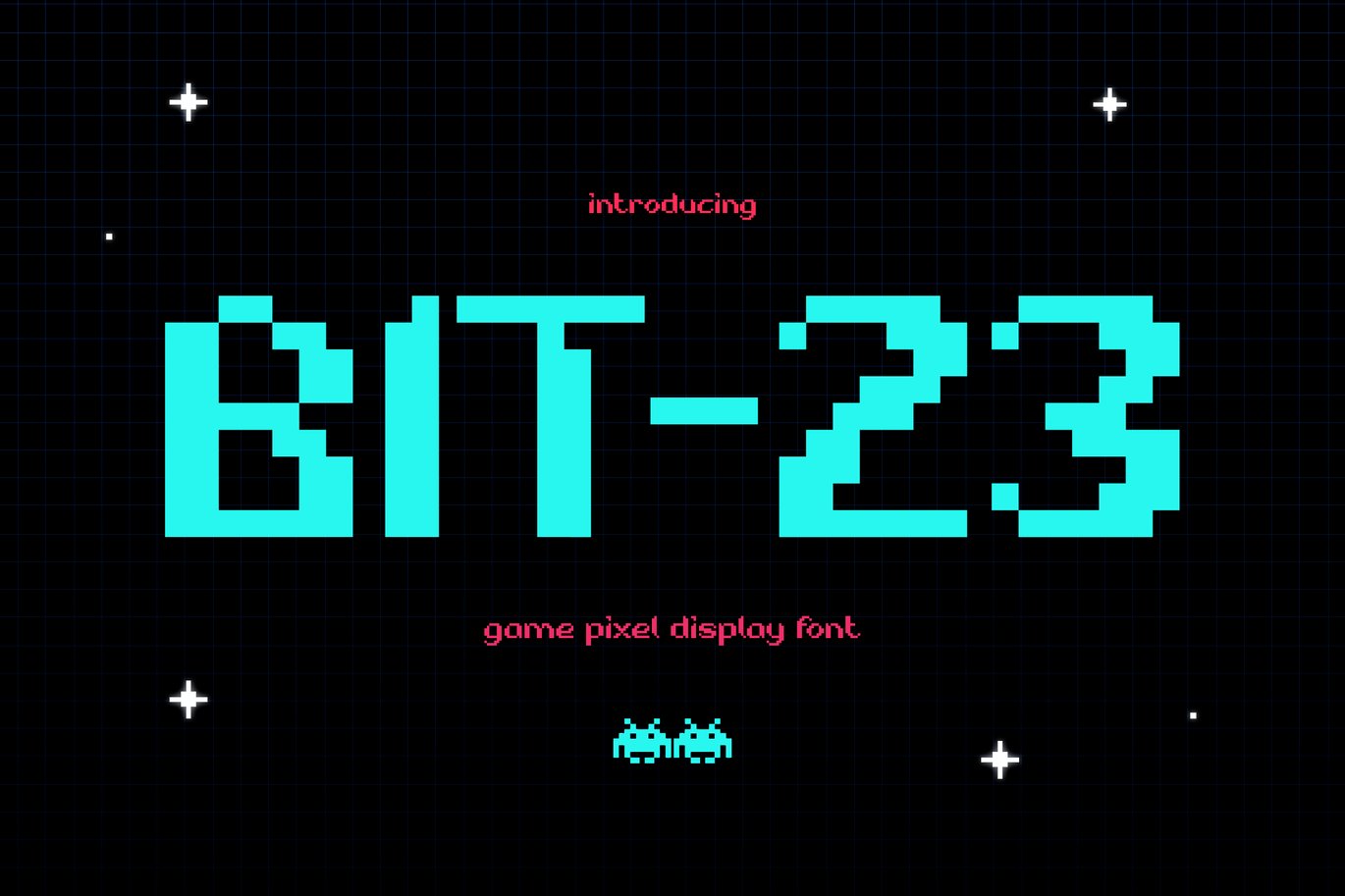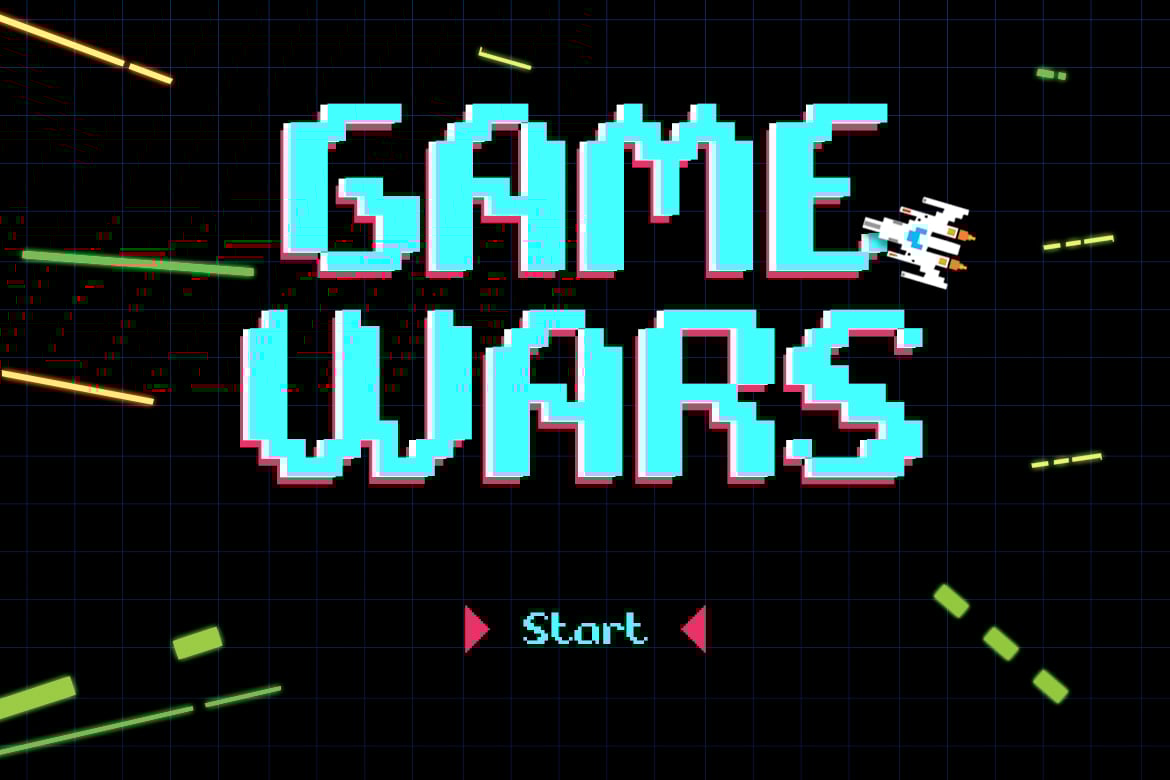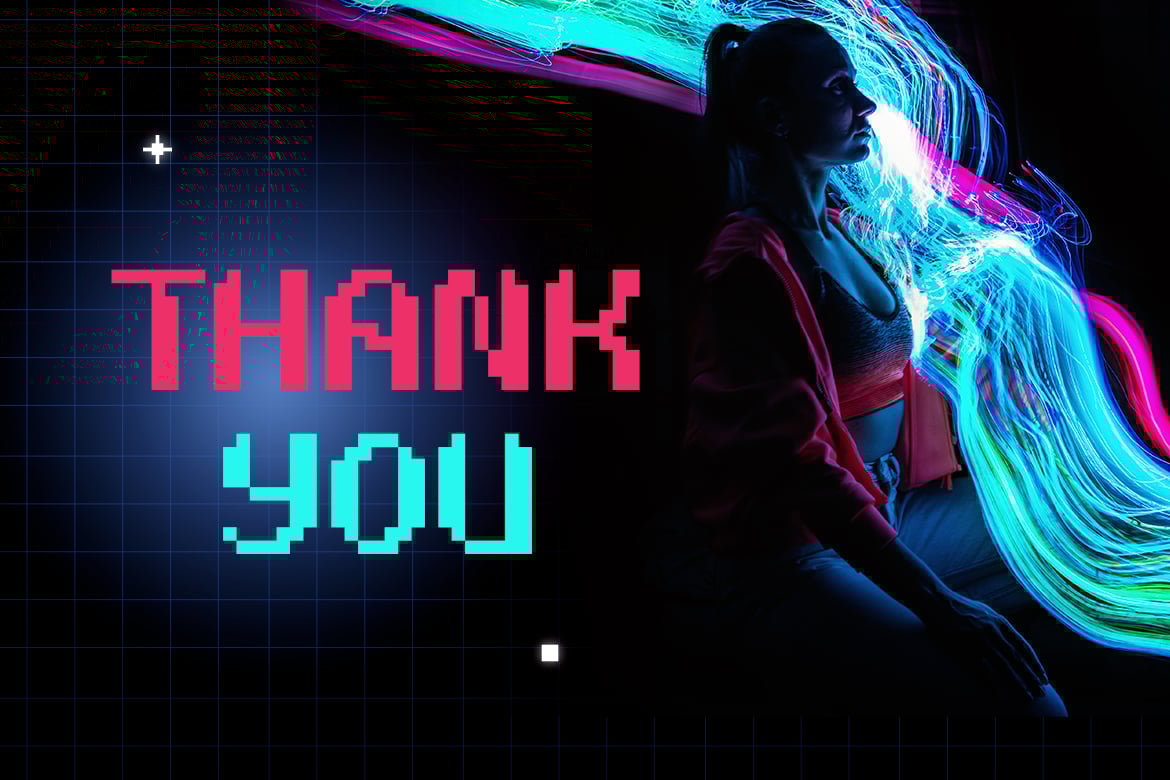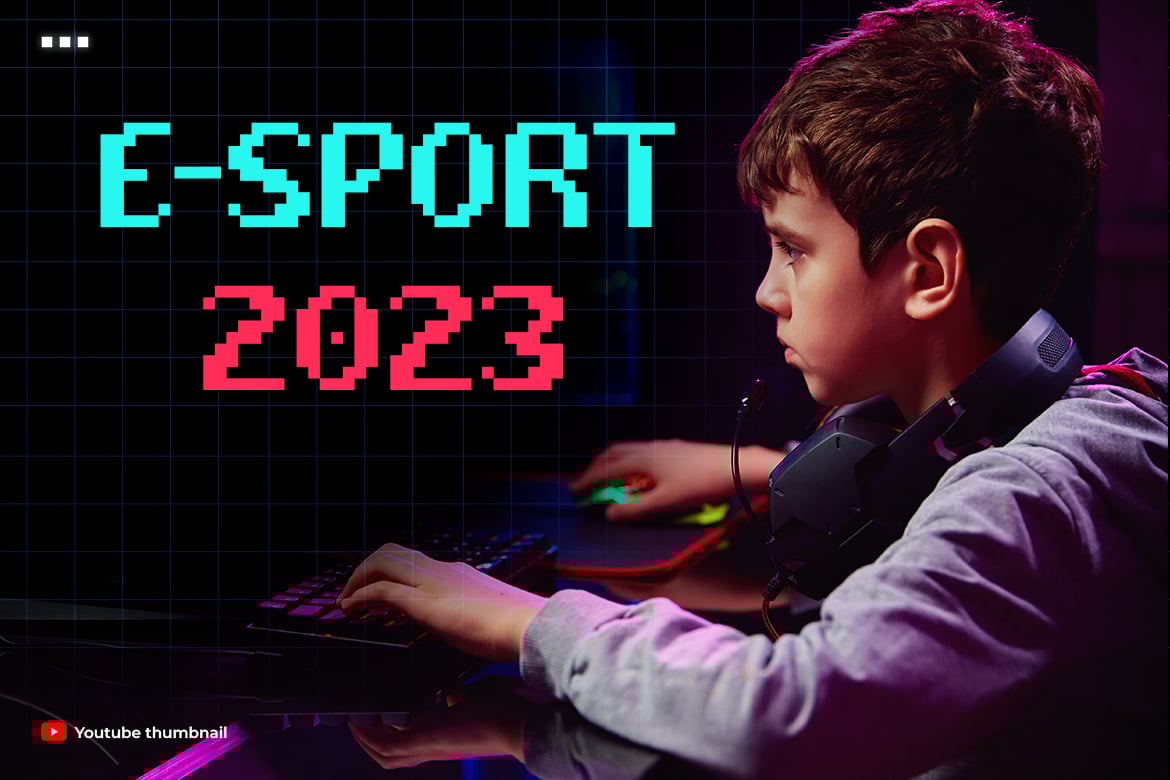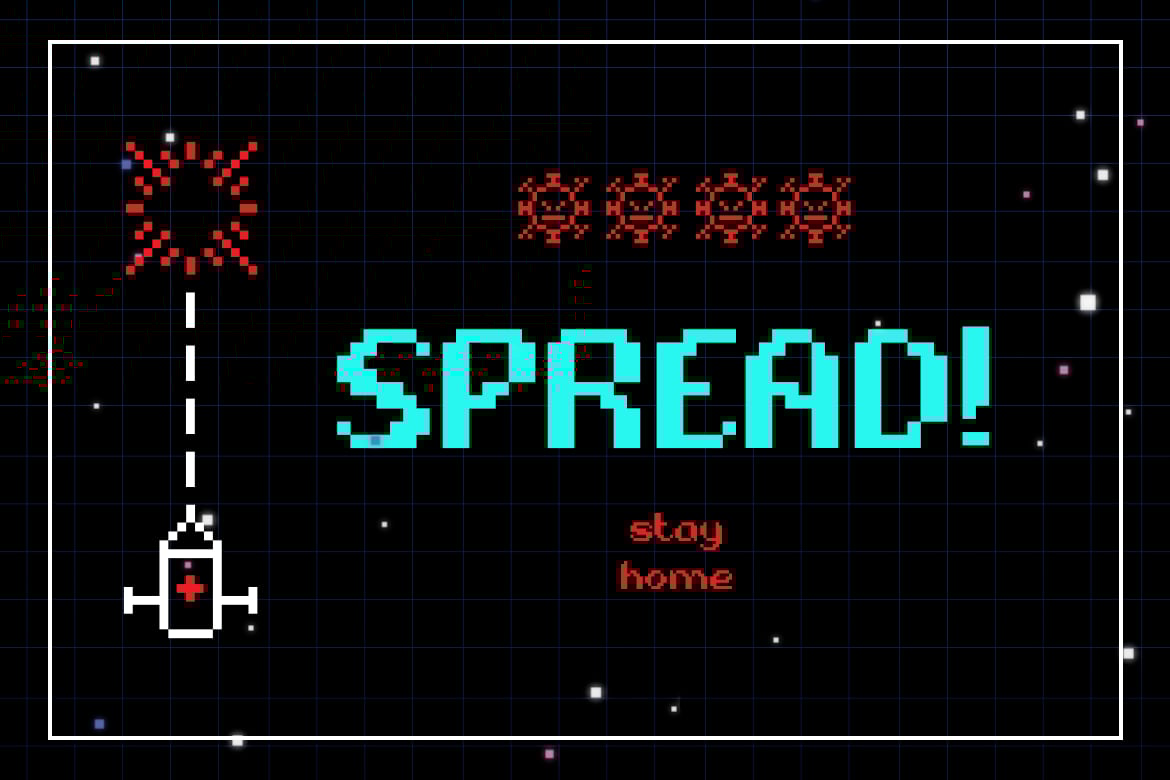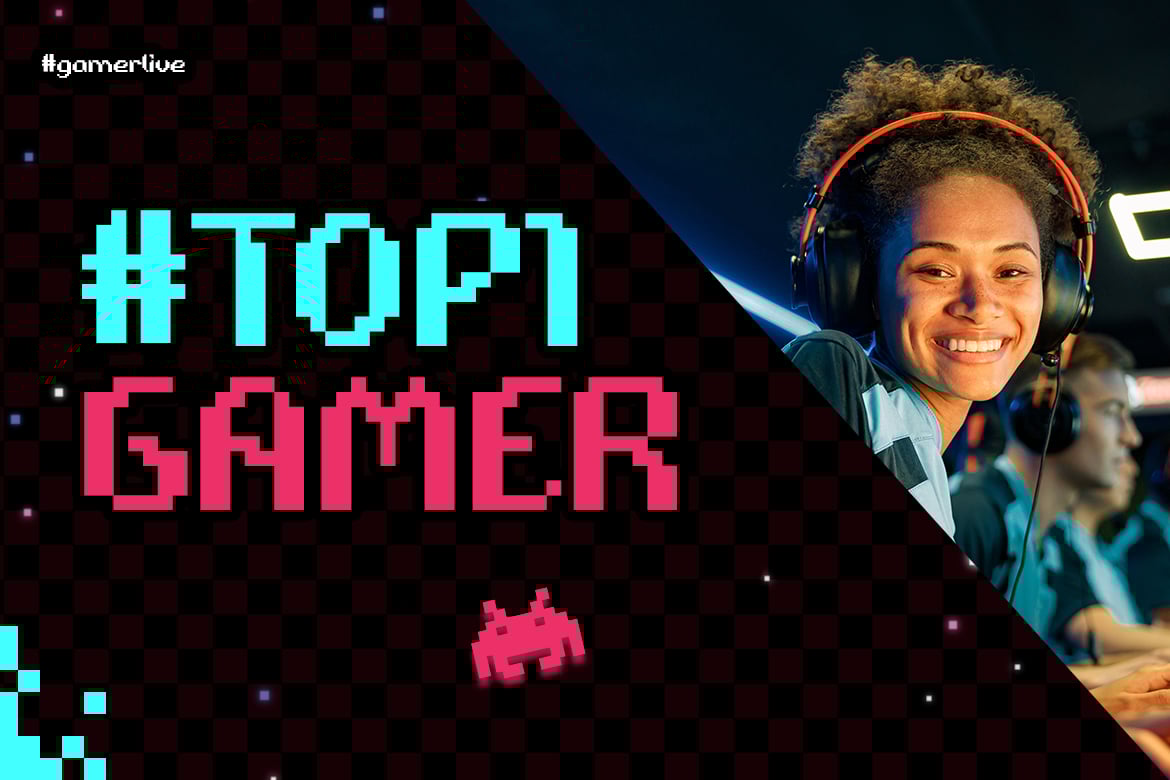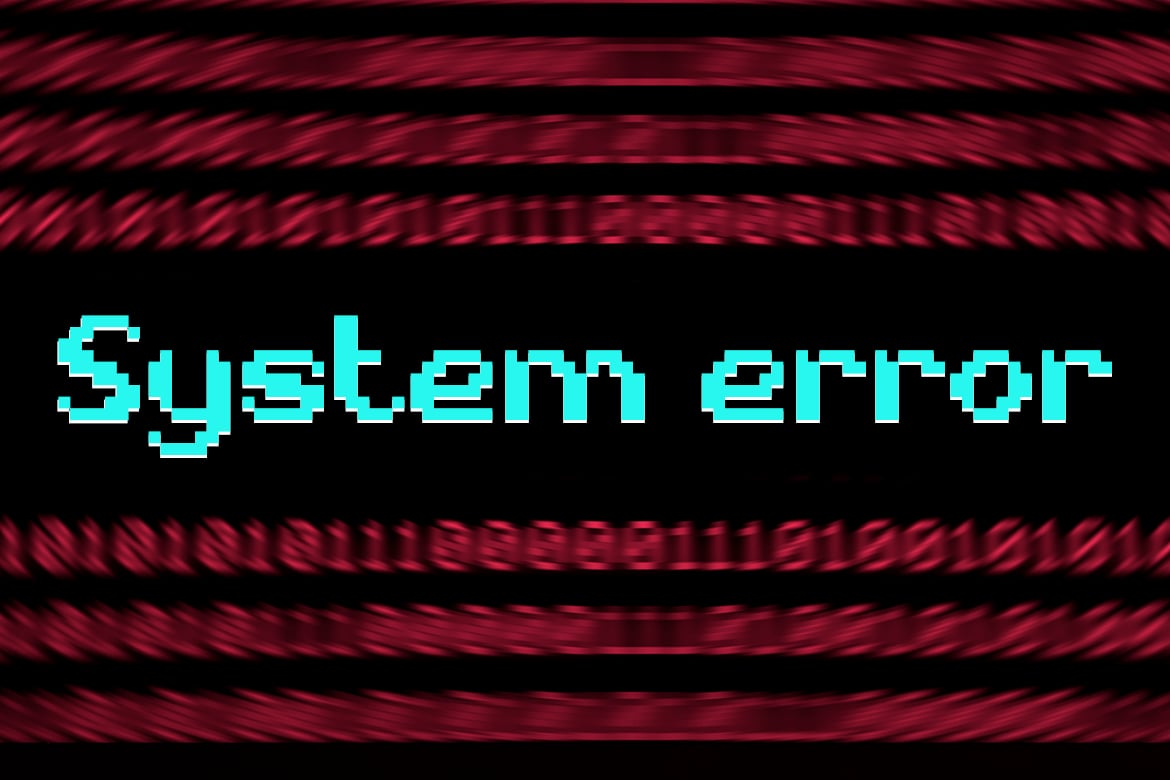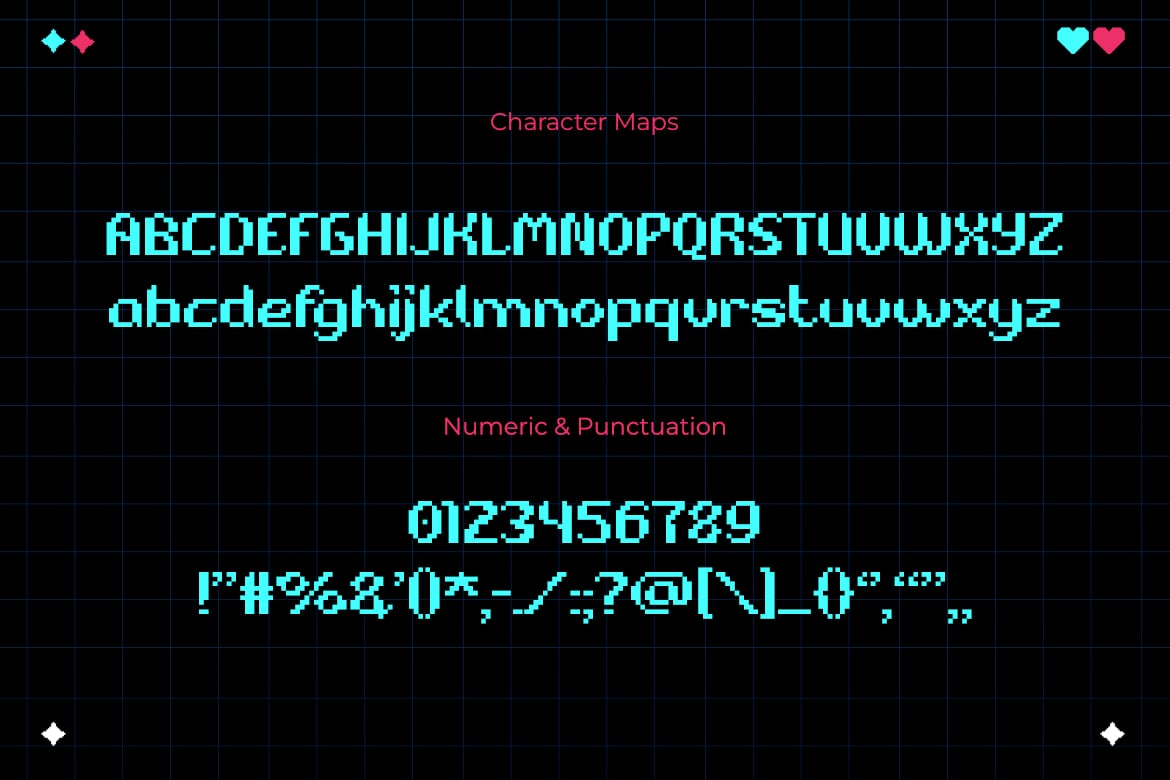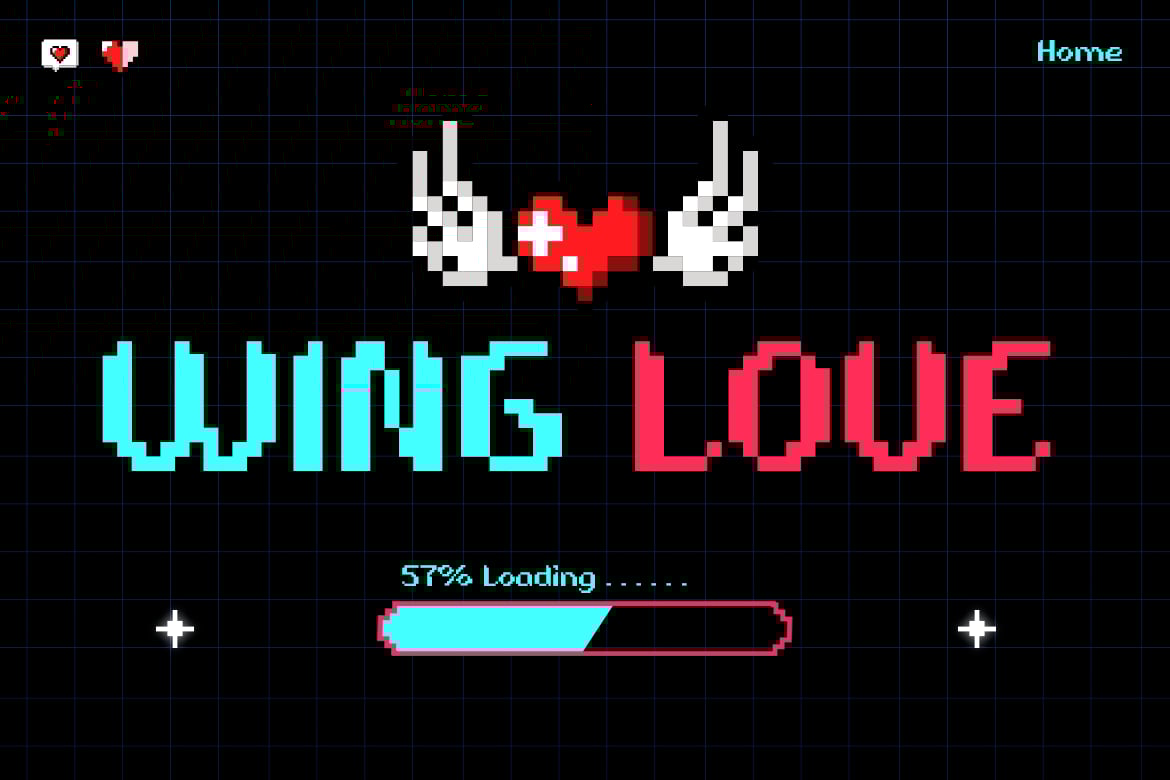
Bit-32 – Retro Gaming Font
Bit-32 is the perfect font for anyone looking to capture the retro vibe of classic video games while still maintaining a modern feel. With its pixelated design and futuristic elements, this font is perfect for any gaming or game industry-related projects. It’s a vintage appeal and playful style make it an excellent choice for children’s games and educational materials. Let Bit-32 take you back to the good old days of gaming while keeping your designs fresh and current.